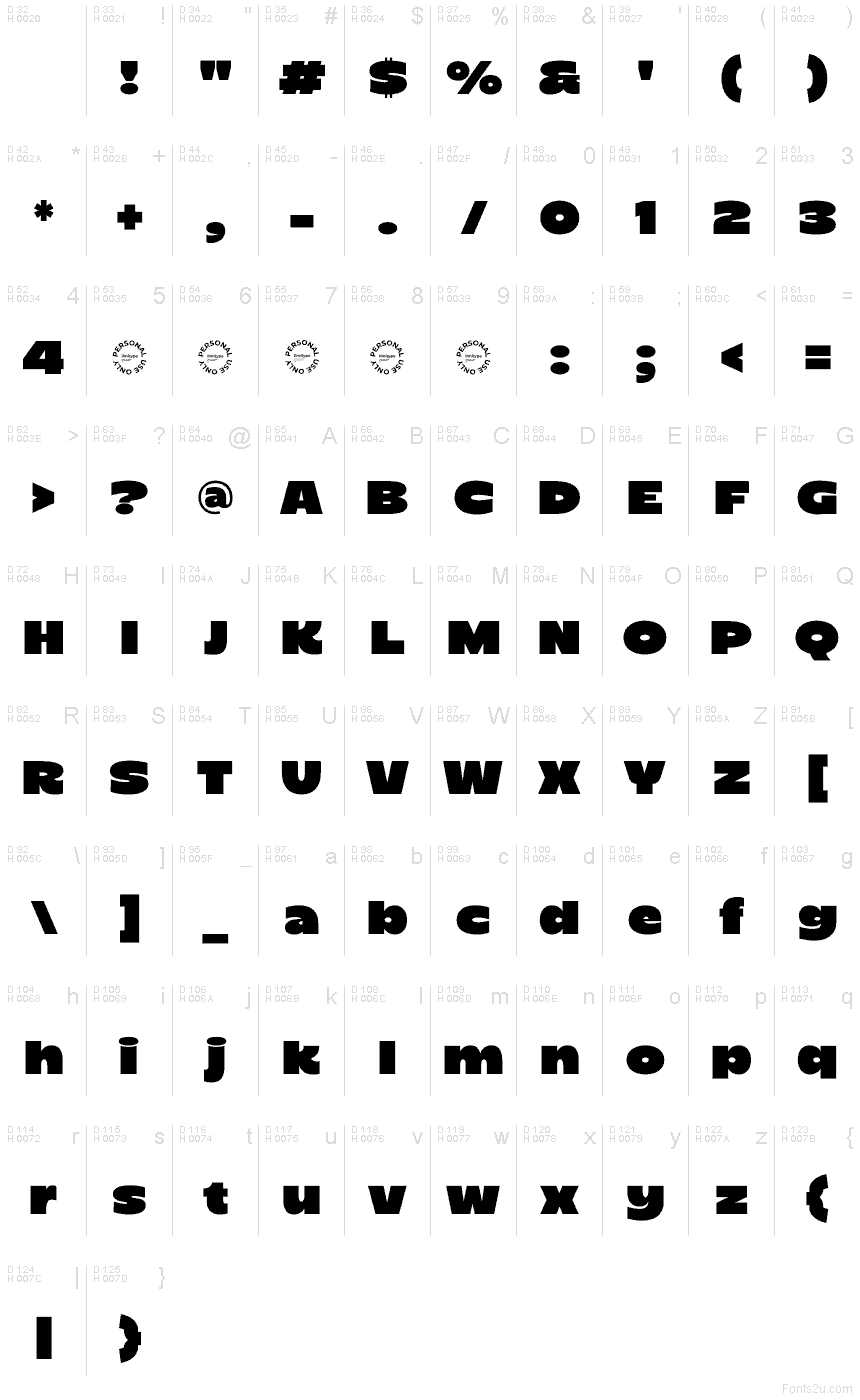
Ziren Demo
Ziren font by Limitype is a free bold rounded sans serif display font. Built around chunky strokes and cushiony corners, it turns heavy geometry into something warm—those pill-shaped counters and snug joins give each word a clean, press-on sticker feel. The rhythm is steady and confident, so headlines hold together like a single, sculpted mark without feeling stiff.
Using Ziren, big type hits hard and reads fast, which shines on logos, packaging, posters, storefront signage, app splash screens, and video thumbnails. This free font’s compact forms waste no space yet stay friendly, making short phrases pop and brand names stick. Tip: pair it with a light geometric sans for captions, or add a touch of tracking at oversized scales.